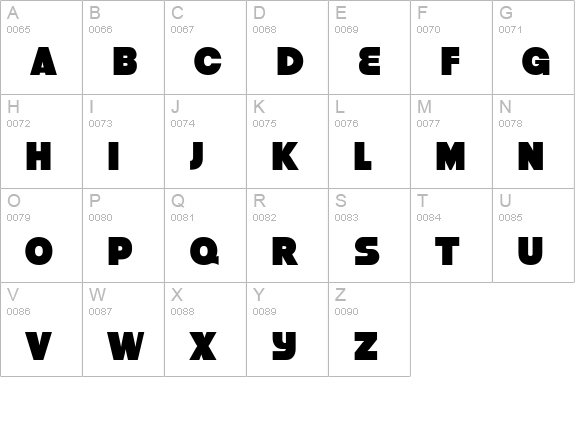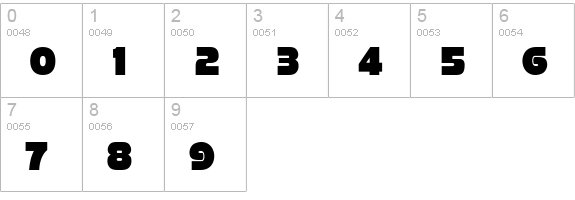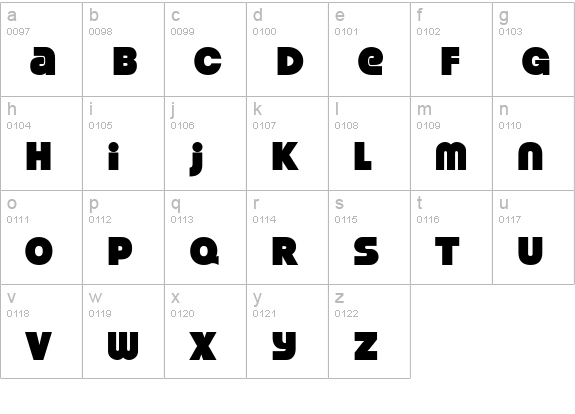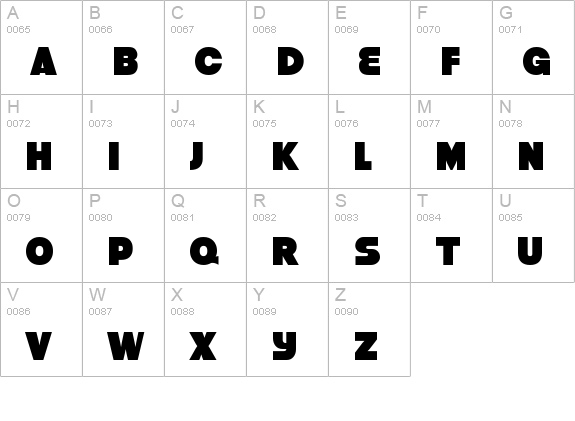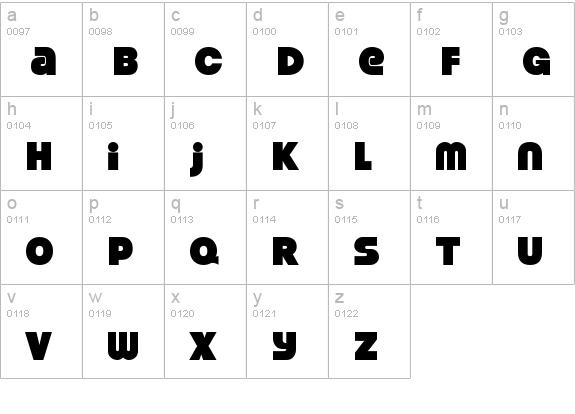
Strenuous Font Details
Strenuous font is a bold and dynamic typeface that exudes strength and energy. Its sharp edges and powerful presence make it perfect for projects that require a strong visual impact. This font is ideal for headlines, posters, logos, and any design that needs to make a statement. The best part is that Strenuous font is completely free to download at FontsMarket.com. With its modern and versatile style, this font is sure to elevate your designs and help you stand out from the crowd. Don't miss out on this incredible opportunity to add Strenuous font to your collection today!